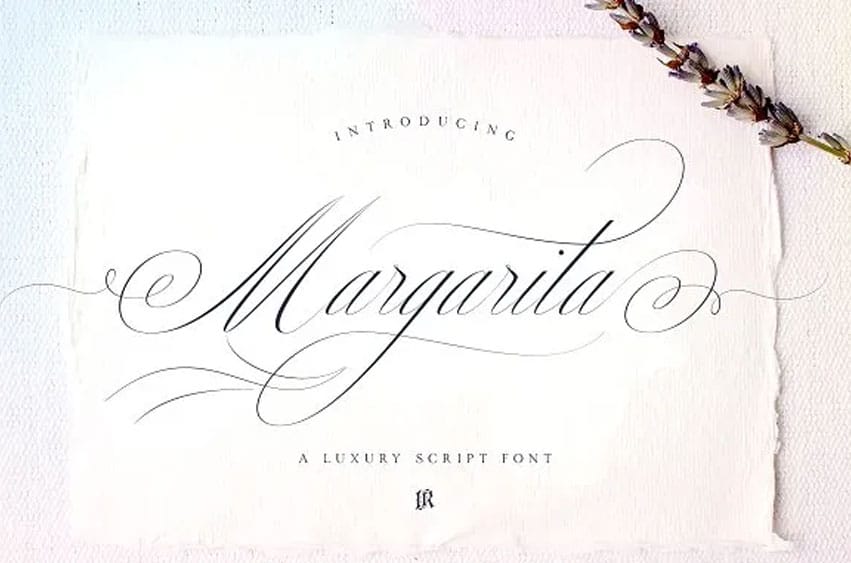
Margarita Script Font is formal script font with multilingual support. Is ideal for wedding invitations, magazines, social media, restaurant menus, greeting cards, birthday, invitations, headers and many more.
This brush font comes with a complete set of lowercase and uppercase characters, a large range of punctuation ligatures, numerals and and multilingual support